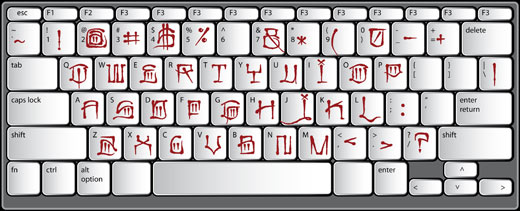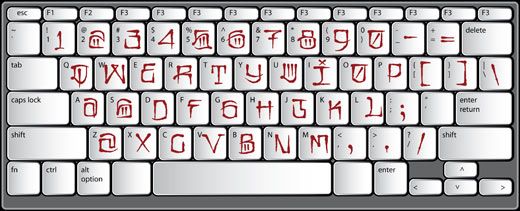
CaliCholo Font Title
Cali Cholo™
EXCLUSIVE! - All new Graffiti Font™
The CaliCholo font is inspired the wide array of Chicano styles seen on the bay area and southern California streets. This simple representation is natural & rough in emulation of hand written letters using spray paint. 2 Alphabets, numbers, symbols.
Cali Cholo Barrio Tagging Alphabet
CaliCholo Capitol Letters
CaliCholo Lowercase Letters
The Cali Cholo™ font is inspired by west coast Chicano street styles. These nieghborhood & gangland styles are uniquely American & are developed & passed down over generations. This fonts is a simple and common representation of these countless styles.